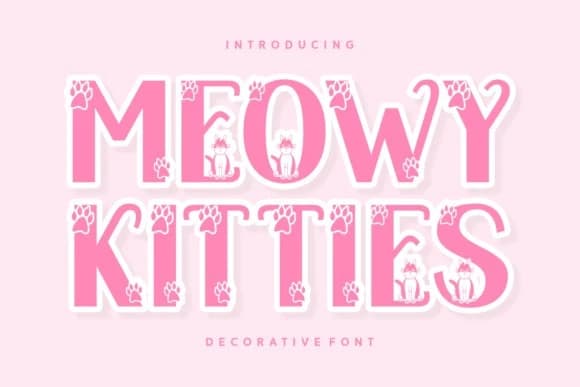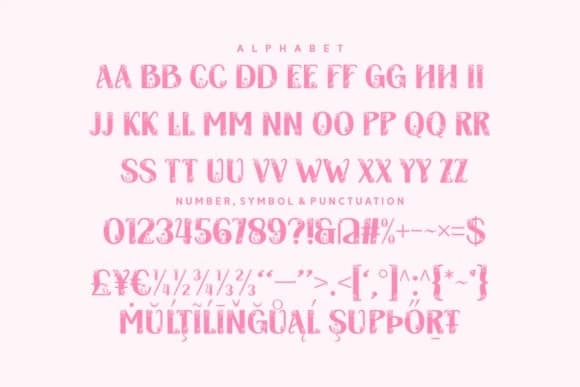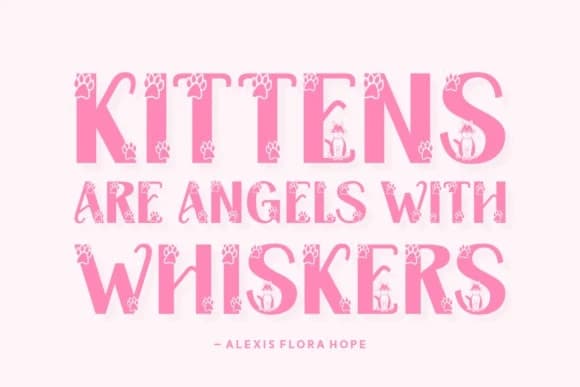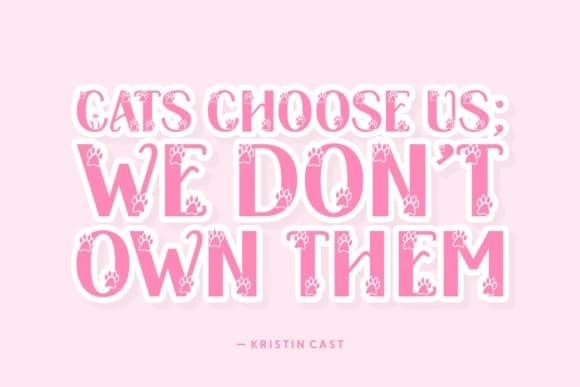
Meowy Kitties Font
Meowy Kitties Font, a decorative font that encapsulates a playful spirit and a sense of whimsical fun. You’ll discover “Meowy Kitties” as an ideal choice to illuminate social media posts and add a dash of charm to your photography projects.